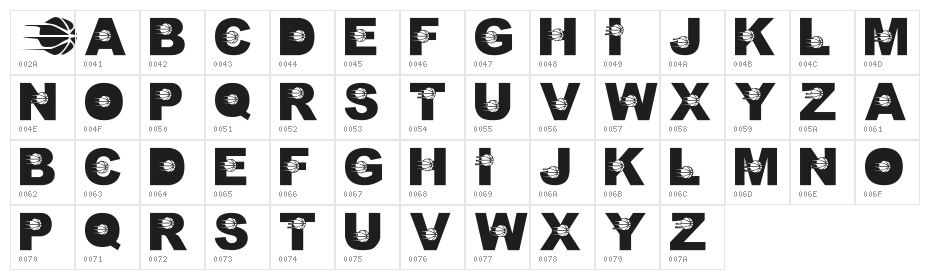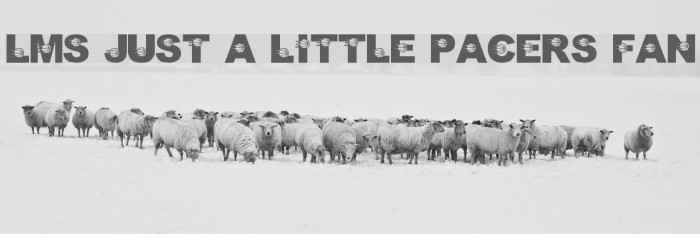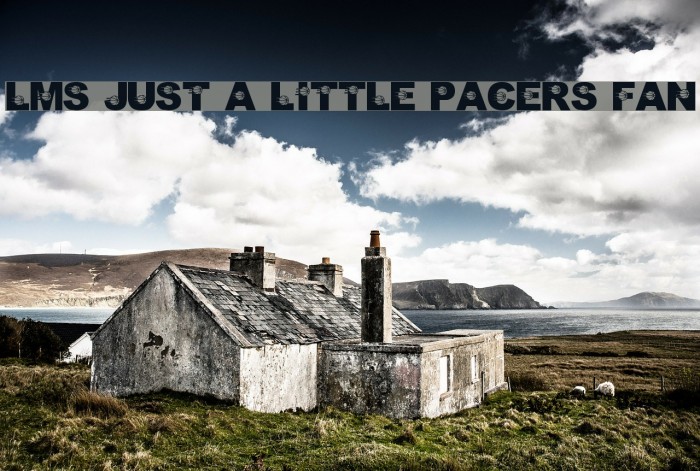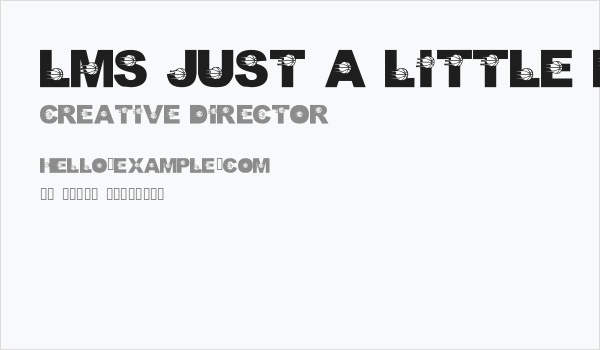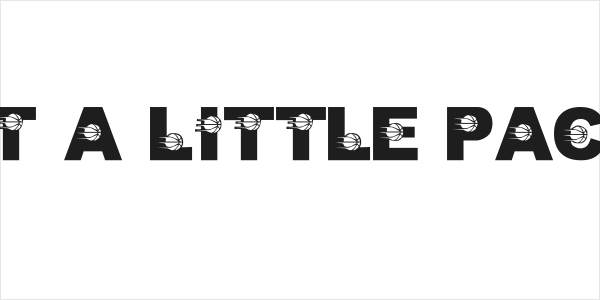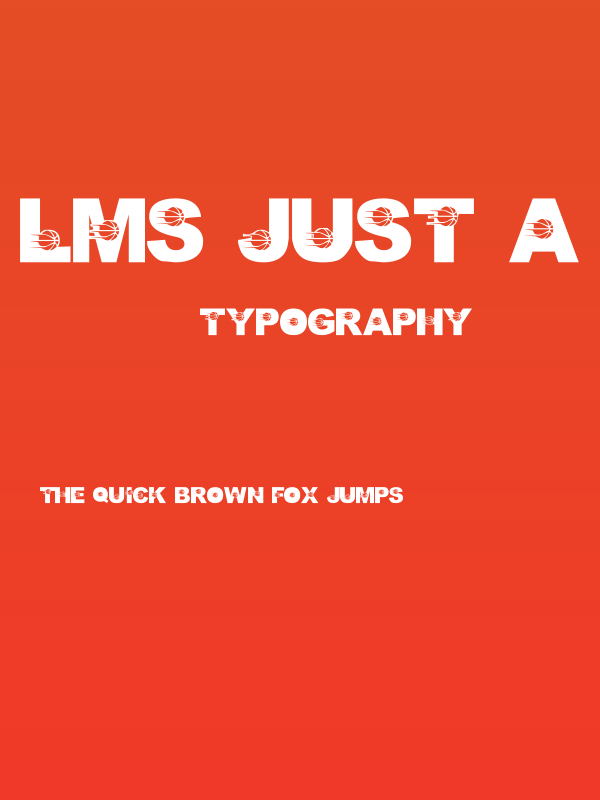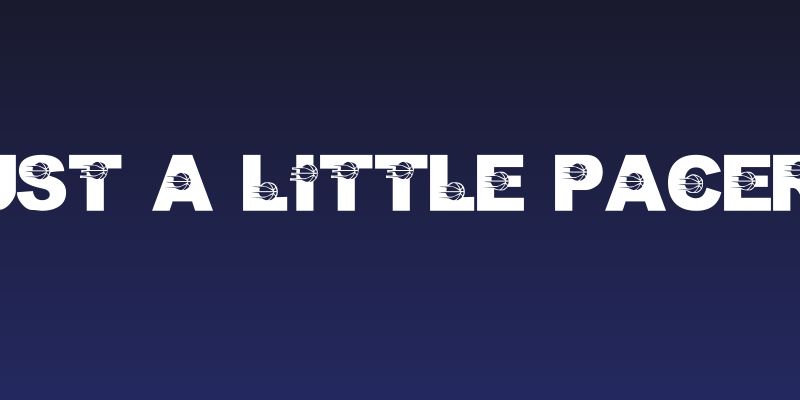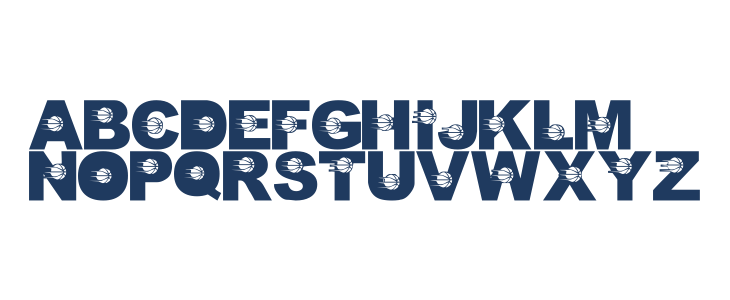
LMS Just A Little Pacers Fan Font
LMS Just A Little Pacers Fan Description
This font features bold, uppercase letters with a unique basketball motif integrated into each character. The design is striking and sports-themed, making it ideal for projects related to basketball or sports in general. The letters are solid and impactful, with a modern and playful twist due to the basketball element. The font's boldness ensures it stands out, while the thematic design adds a layer of creativity and fun. It's perfect for headlines, posters, or any design that aims to capture the excitement and energy of basketball.
| Proposed Projects | Ideal for sports event posters, basketball team logos, fan merchandise, and themed social media graphics. |